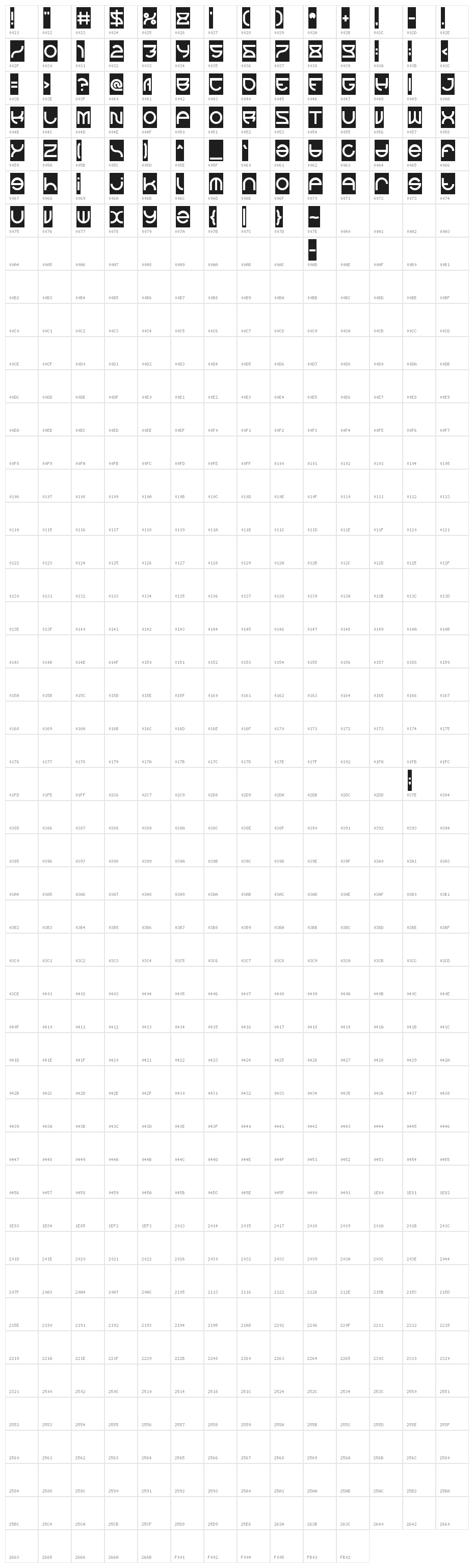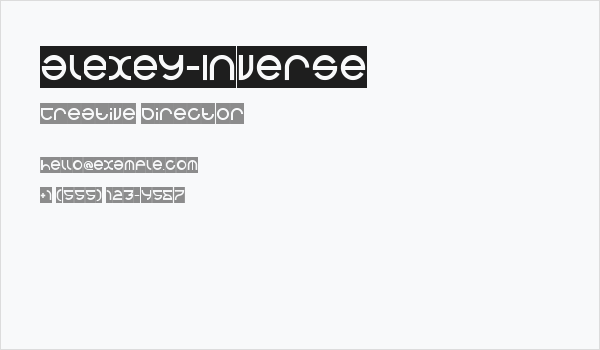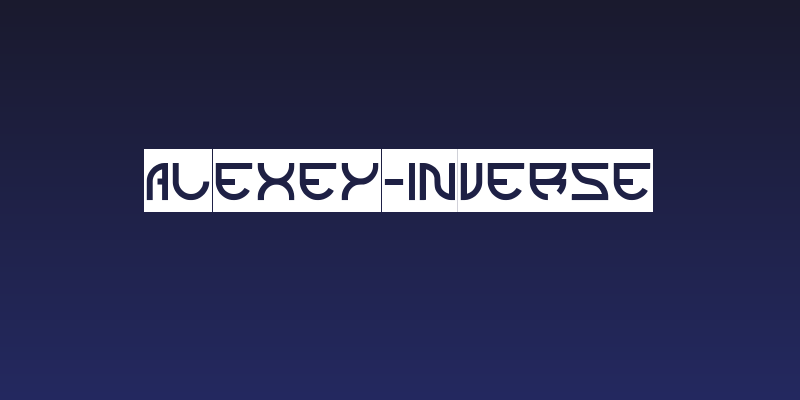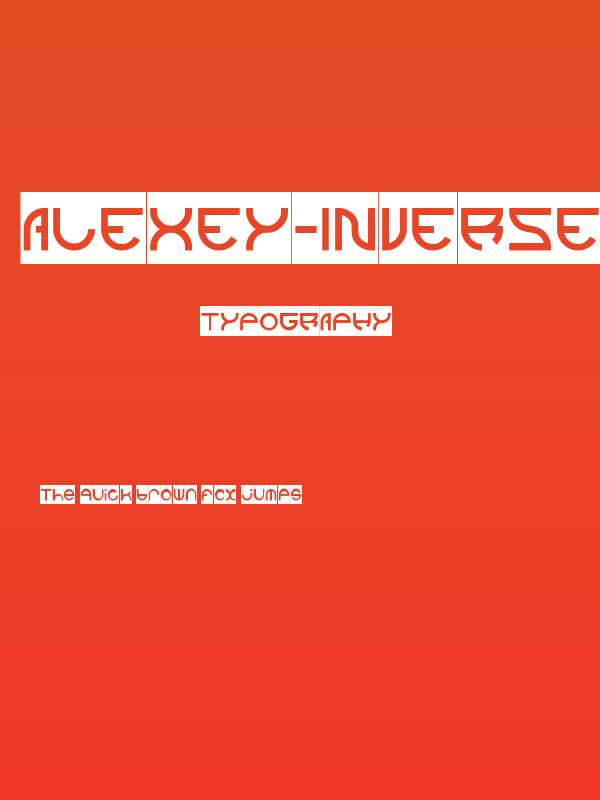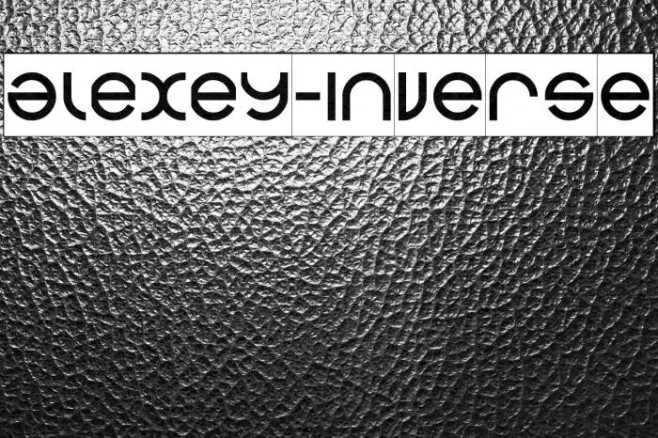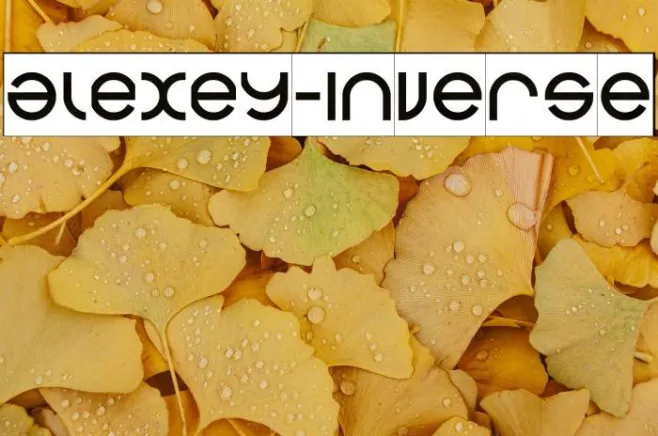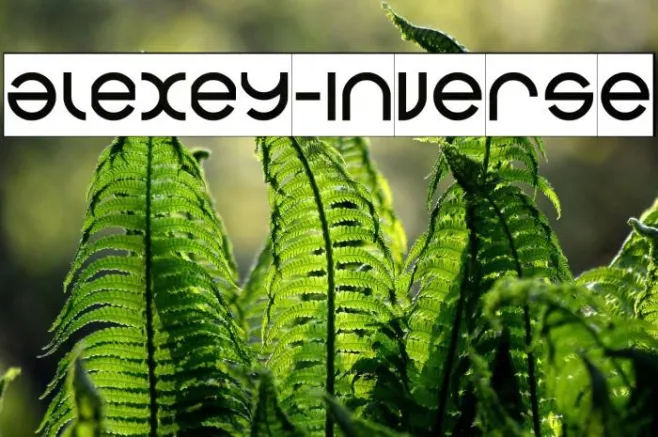
alexey-Inverse Font
alexey-Inverse Description
This font features a futuristic and geometric design with bold, angular lines and sharp edges. The characters are uniquely stylized, incorporating both straight and curved elements that create a dynamic and visually striking appearance. The uppercase and lowercase letters maintain a consistent aesthetic, with a strong emphasis on symmetry and balance. The numerals and special characters follow the same design principles, ensuring a cohesive look across all elements. This font's distinct style makes it ideal for projects that require a modern and edgy feel.
ALEXEY-INVERSE UPPERCASE
ALEXEY-INVERSE LOWERCASE
ALEXEY-INVERSE OTHER CHARS